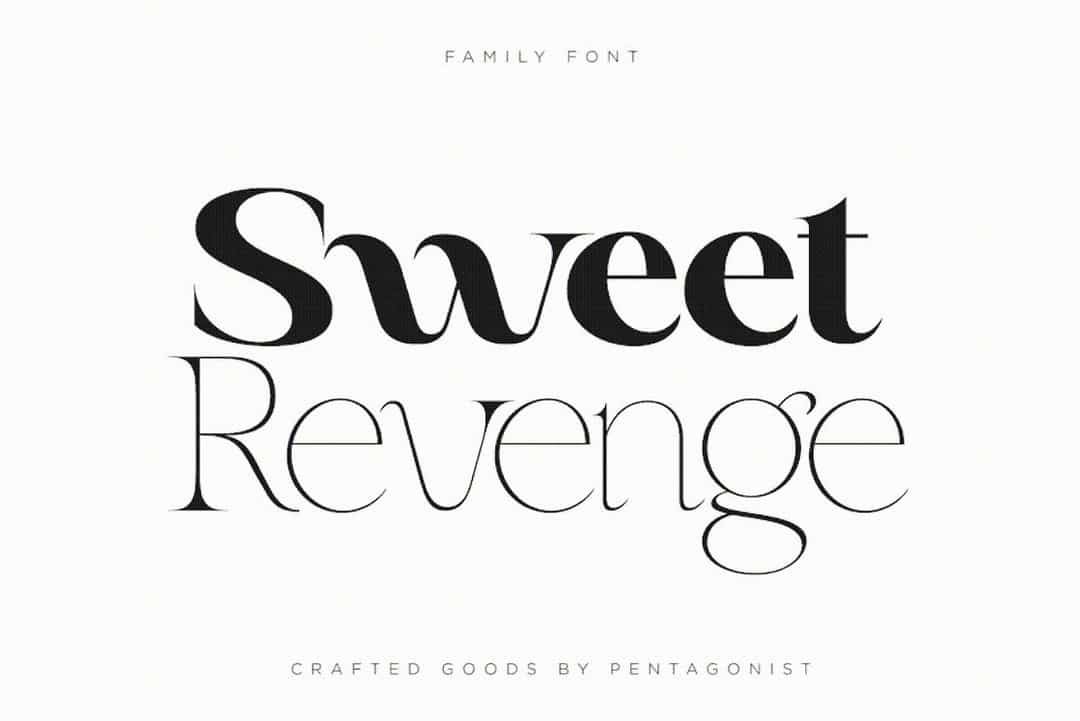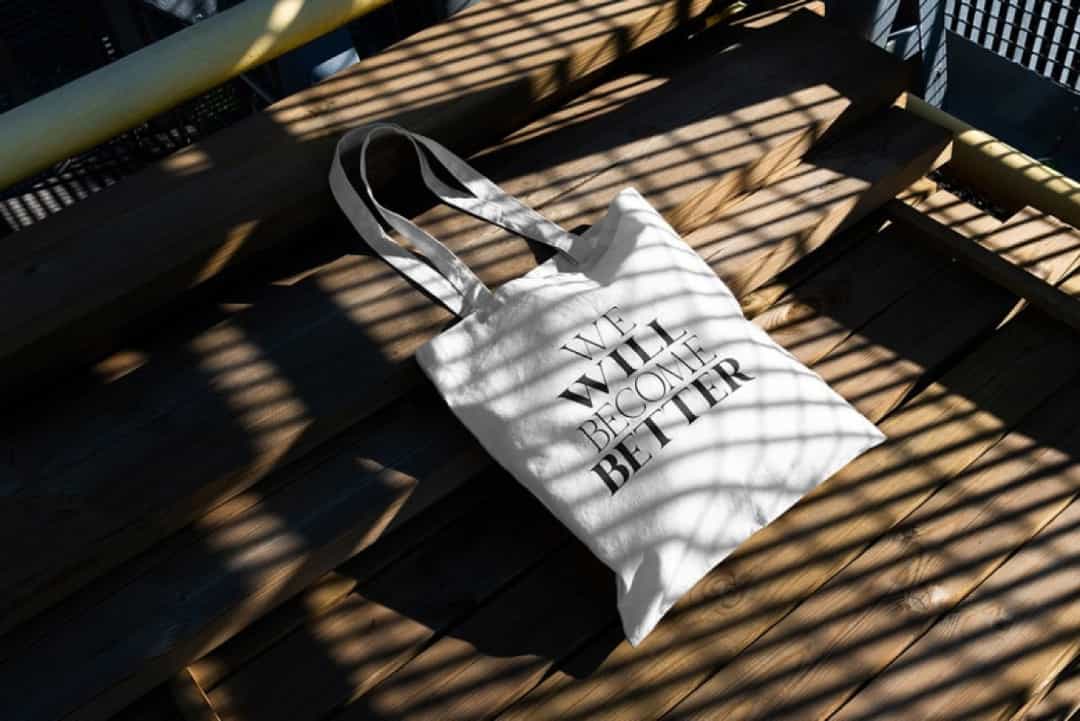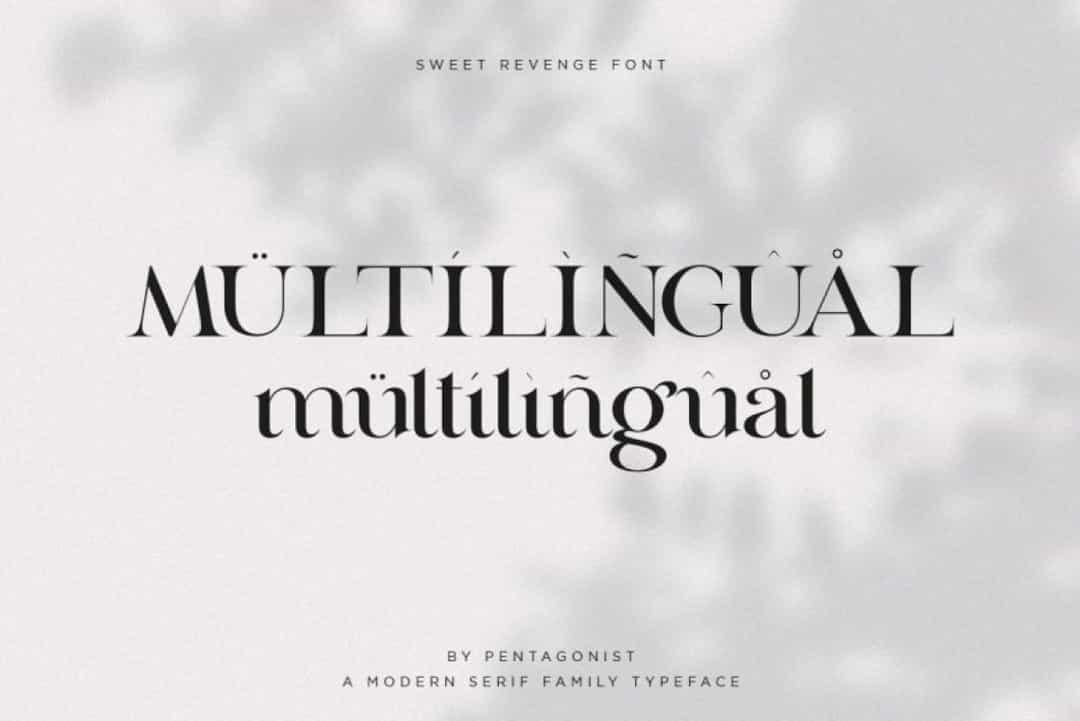
Discover Sweet Revenge Font, part of the Serif collection—a versatile and unique font perfect for adding a personal touch to your projects. Download it for free and enjoy crafting designs with style, from invitations to social media posts. This font is available exclusively for personal use, giving you the freedom to create without limits. Unlock your creativity with Sweet Revenge Font today!
Sweet Revenge by pentagonistudio is a modern, high-quality serif font available for personal use and free to download for download. The free version includes lowercase letters as well as special characters.